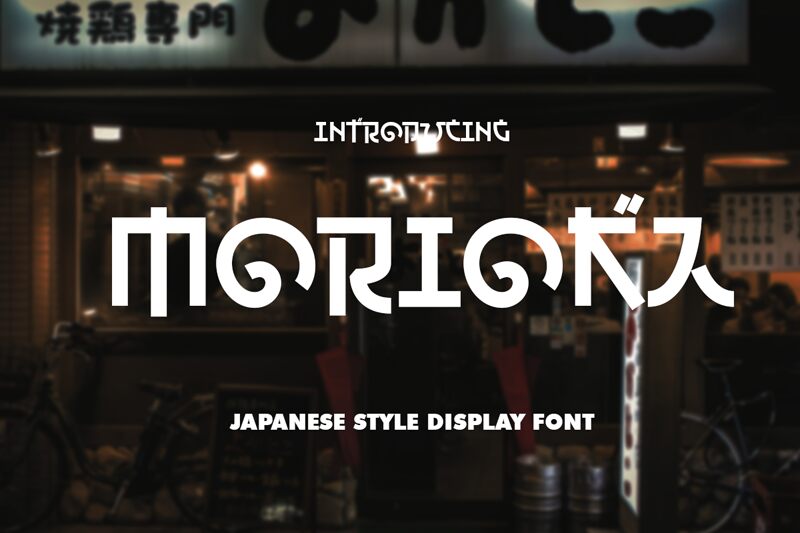
Morioka font designed by Mocha Frappuccino carries a futuristic touch of mystery in a foreign visual style. Inspired by Japanese elements, this font is an attempt to assimilate architectural influences with modern typography shapes. It is a display-oriented typeface where bold and complex letters create an atmosphere of static energy.
Both decorative and elegant, it is best paired with minimal yet complex layouts which allow it to stand out. Use Morioka in numerous editorial and artistic applications such as magazines, albums, brochures, infographics, event posters, branding identity, eye-catching advertisements, social media graphics, and websites.